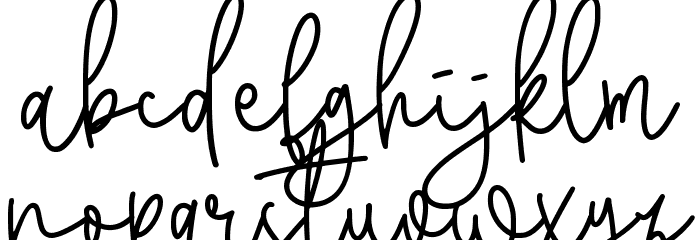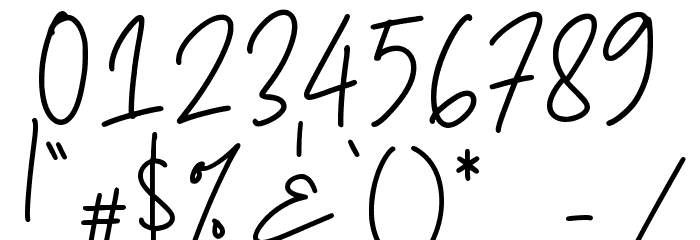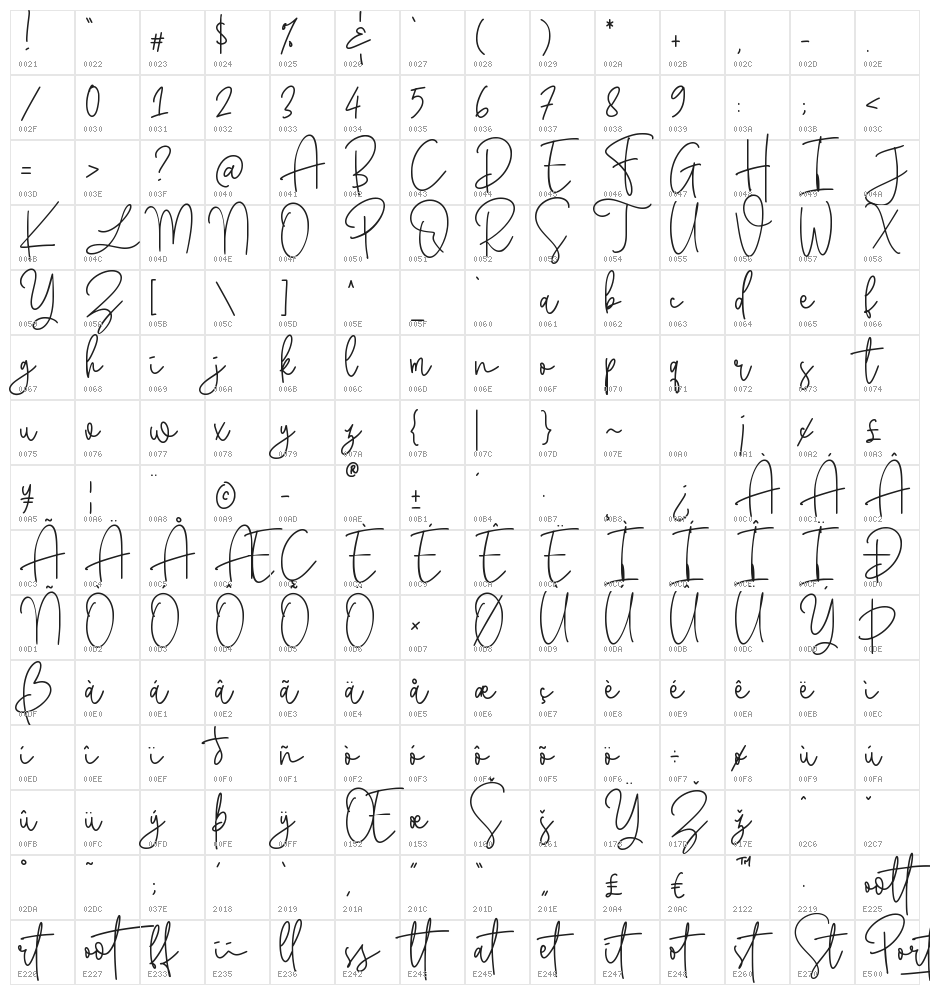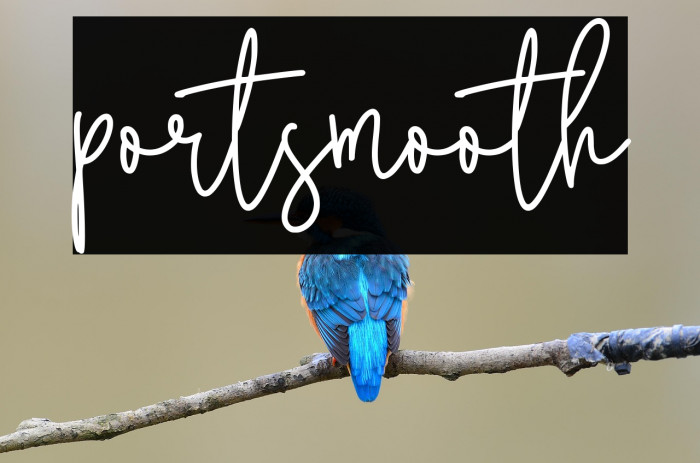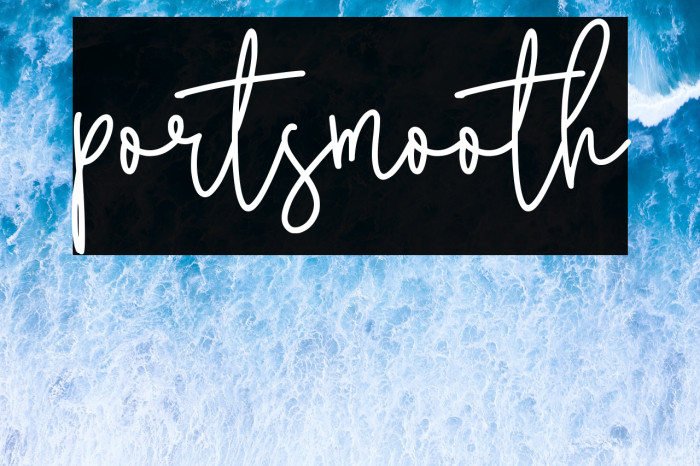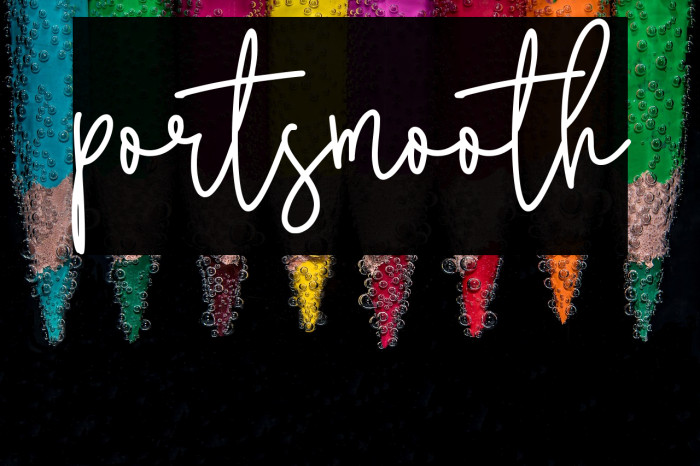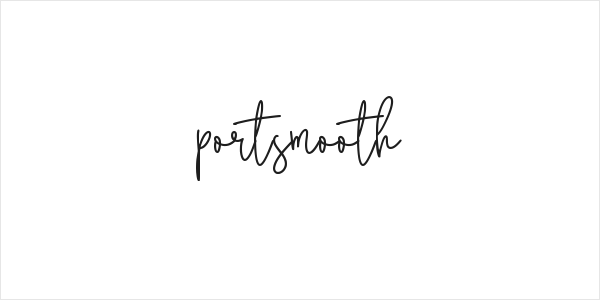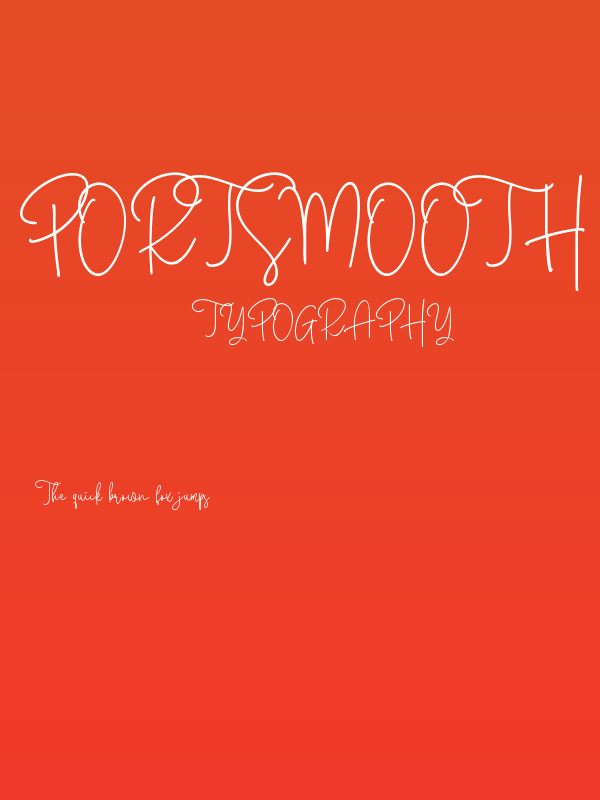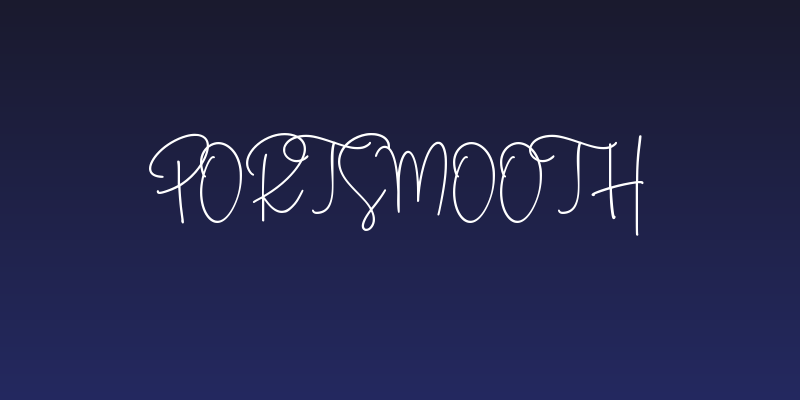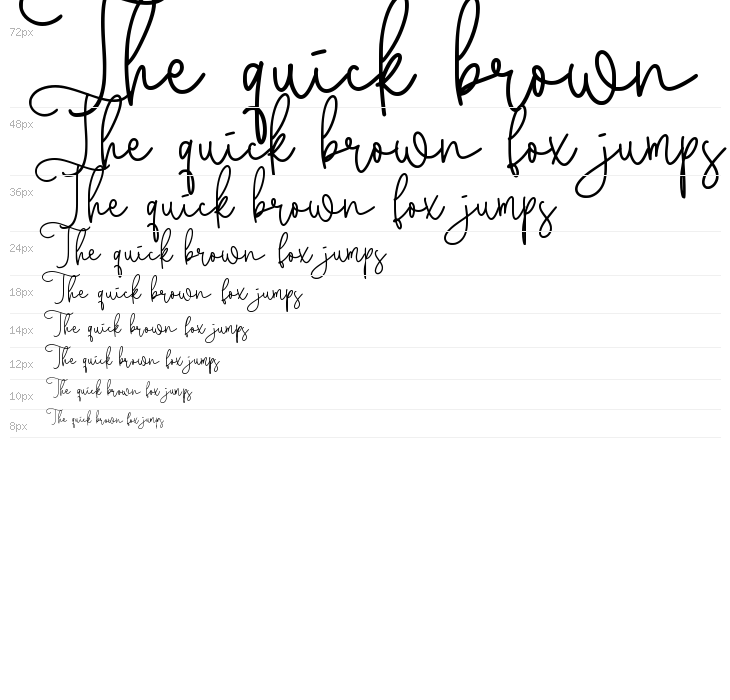
portsmooth Font
This font features a lively and dynamic handwritten style, characterized by its fluid and continuous strokes. The uppercase letters are tall and slender, with a slight slant that adds a sense of movement and elegance. Lowercase letters are more rounded and connected, creating a cohesive and flowing appearance. The numbers and special characters maintain the same playful and informal aesthetic, making the font versatile for various creative applications. The overall design is reminiscent of casual handwriting, offering a personal touch to any project.
A lively, handwritten font with fluid strokes and a playful aesthetic.
- Proposed Projects: Ideal for greeting cards, invitations, personal branding, and creative projects that require a personal touch.
- Overall Style: Casual, Playful
- Use Case: Logos, Invitations, Personal Branding